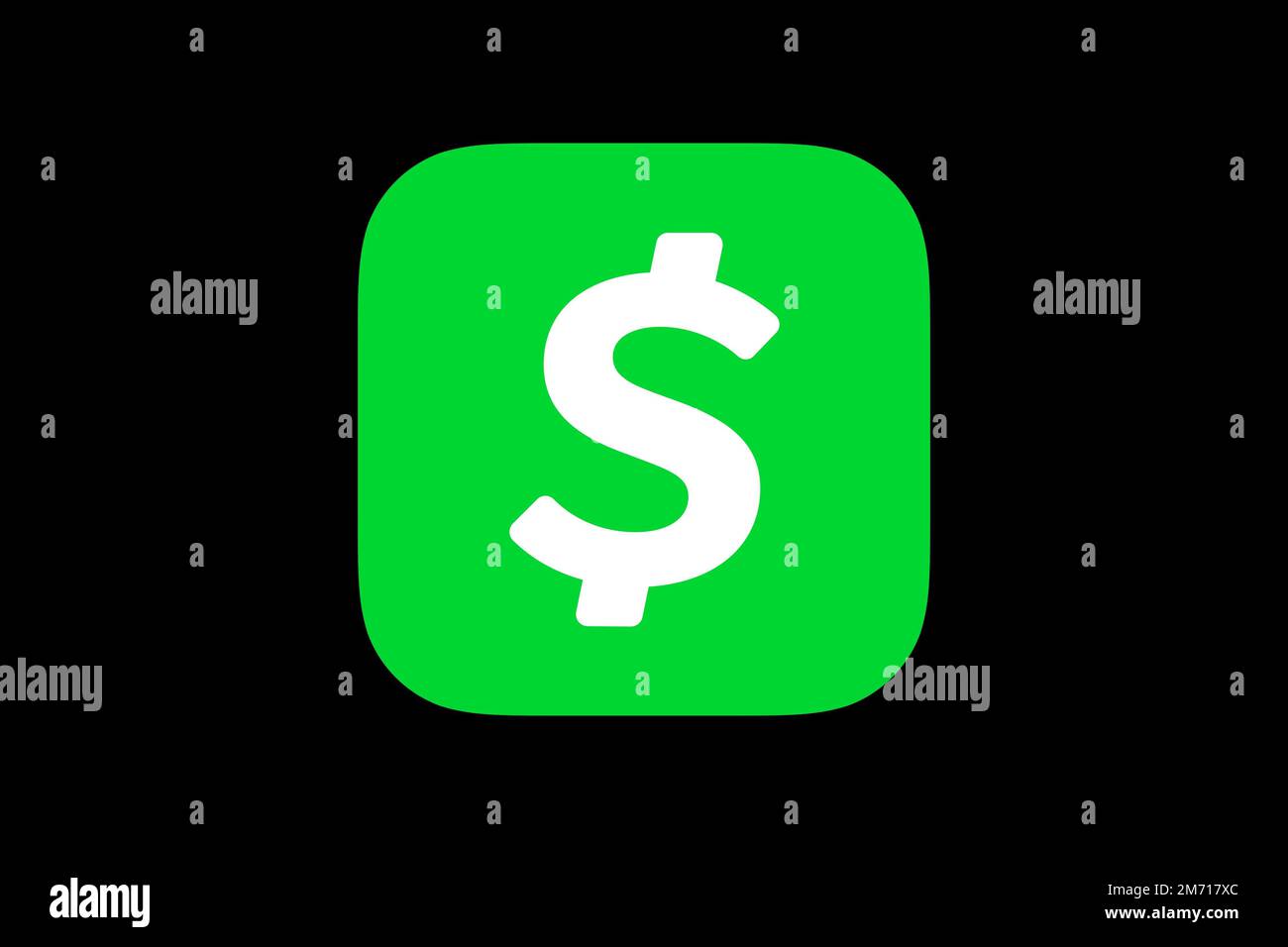
Cash App Logo Font . cash app utilizes a custom font named ‘cashmarket,’ designed to embody the simplicity and clarity crucial for financial apps. archive of freely downloadable fonts. The next logo features a. Browse by alphabetical listing, by style, by author or by popularity. The font that cashapp uses for their marketing. in terms of the font used, cash app’s logo seems to have been modeled based on ff real head medium, a medium variant of the relatively popular. we can help you convert any text into beautiful fonts with eye catching styles with our cashapp font generator. the cashapp logo has a unique font named cashmarket, which was made by their own team.
cash app utilizes a custom font named ‘cashmarket,’ designed to embody the simplicity and clarity crucial for financial apps. the cashapp logo has a unique font named cashmarket, which was made by their own team. Browse by alphabetical listing, by style, by author or by popularity. archive of freely downloadable fonts. The next logo features a. in terms of the font used, cash app’s logo seems to have been modeled based on ff real head medium, a medium variant of the relatively popular. The font that cashapp uses for their marketing. we can help you convert any text into beautiful fonts with eye catching styles with our cashapp font generator.
Cash App Logo Font cash app utilizes a custom font named ‘cashmarket,’ designed to embody the simplicity and clarity crucial for financial apps. in terms of the font used, cash app’s logo seems to have been modeled based on ff real head medium, a medium variant of the relatively popular. we can help you convert any text into beautiful fonts with eye catching styles with our cashapp font generator. The next logo features a. cash app utilizes a custom font named ‘cashmarket,’ designed to embody the simplicity and clarity crucial for financial apps. archive of freely downloadable fonts. the cashapp logo has a unique font named cashmarket, which was made by their own team. Browse by alphabetical listing, by style, by author or by popularity. The font that cashapp uses for their marketing.
Cash App Logo LogoDix Cash App Logo Font archive of freely downloadable fonts. we can help you convert any text into beautiful fonts with eye catching styles with our cashapp font generator. The next logo features a. Browse by alphabetical listing, by style, by author or by popularity. in terms of the font used, cash app’s logo seems to have been modeled based on ff. Cash App Logo Font.
Cash App Logo LogoDix Cash App Logo Font Browse by alphabetical listing, by style, by author or by popularity. The next logo features a. The font that cashapp uses for their marketing. the cashapp logo has a unique font named cashmarket, which was made by their own team. we can help you convert any text into beautiful fonts with eye catching styles with our cashapp font. Cash App Logo Font.
Small Cash App Logo LogoDix Cash App Logo Font The next logo features a. The font that cashapp uses for their marketing. in terms of the font used, cash app’s logo seems to have been modeled based on ff real head medium, a medium variant of the relatively popular. we can help you convert any text into beautiful fonts with eye catching styles with our cashapp font. Cash App Logo Font.
Cash App Logo, symbol, meaning, history, PNG, brand Cash App Logo Font cash app utilizes a custom font named ‘cashmarket,’ designed to embody the simplicity and clarity crucial for financial apps. Browse by alphabetical listing, by style, by author or by popularity. we can help you convert any text into beautiful fonts with eye catching styles with our cashapp font generator. The font that cashapp uses for their marketing. . Cash App Logo Font.
Cash Cash Font forum Cash App Logo Font we can help you convert any text into beautiful fonts with eye catching styles with our cashapp font generator. Browse by alphabetical listing, by style, by author or by popularity. archive of freely downloadable fonts. in terms of the font used, cash app’s logo seems to have been modeled based on ff real head medium, a medium. Cash App Logo Font.
Cash App Logo LogoDix Cash App Logo Font Browse by alphabetical listing, by style, by author or by popularity. The font that cashapp uses for their marketing. in terms of the font used, cash app’s logo seems to have been modeled based on ff real head medium, a medium variant of the relatively popular. we can help you convert any text into beautiful fonts with eye. Cash App Logo Font.
Cash App, Logo, Black Background Stock Photo Alamy Cash App Logo Font in terms of the font used, cash app’s logo seems to have been modeled based on ff real head medium, a medium variant of the relatively popular. cash app utilizes a custom font named ‘cashmarket,’ designed to embody the simplicity and clarity crucial for financial apps. Browse by alphabetical listing, by style, by author or by popularity. . Cash App Logo Font.
What bank is cash app? Yoors Cash App Logo Font The font that cashapp uses for their marketing. in terms of the font used, cash app’s logo seems to have been modeled based on ff real head medium, a medium variant of the relatively popular. archive of freely downloadable fonts. The next logo features a. we can help you convert any text into beautiful fonts with eye. Cash App Logo Font.
white cash app logo png Role Microblog Image Library Cash App Logo Font we can help you convert any text into beautiful fonts with eye catching styles with our cashapp font generator. The next logo features a. archive of freely downloadable fonts. in terms of the font used, cash app’s logo seems to have been modeled based on ff real head medium, a medium variant of the relatively popular. . Cash App Logo Font.